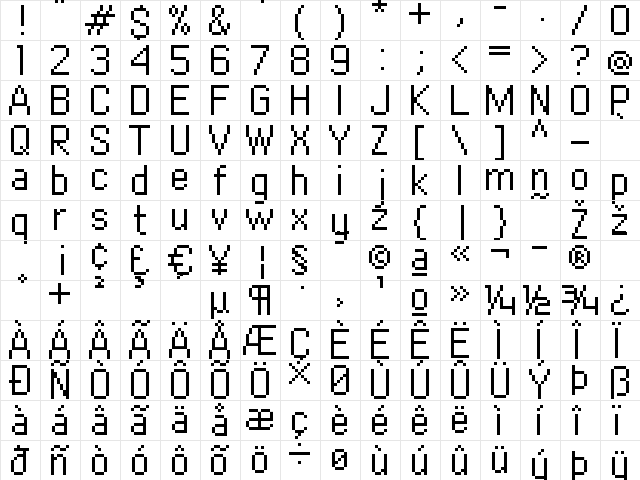
copy 10_55 Regular
Design Context for copy 10_55 Typeface
copy 10_55 offers clean, dependable letterforms without strong stylistic allegiance, making it a practical choice for designers who need flexibility.